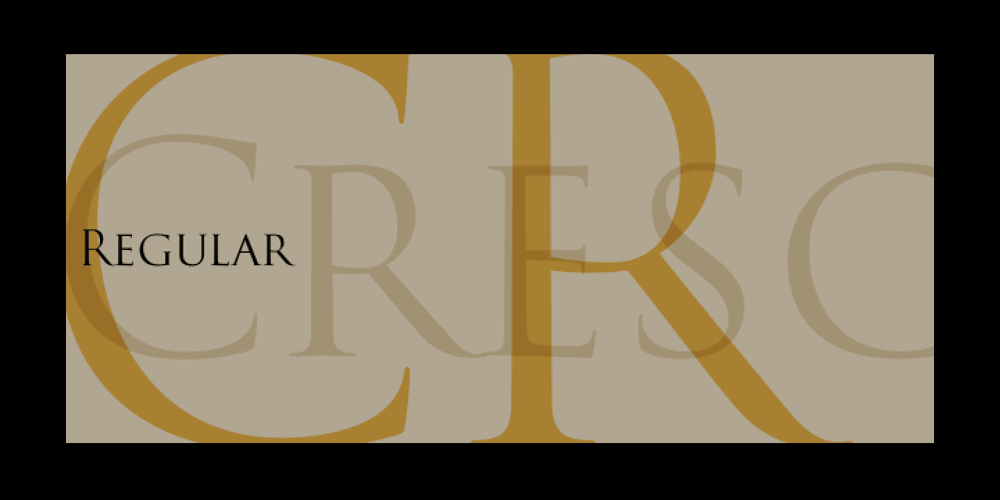
Cresci LP Font Family was designed by Garrett Boge, Giovan Francesco Cresci and published by LetterPerfect. Cresci LP contains 1 styles and family package options. Cresci is a carefully digitized reproduction of an alphabet of Giovan Francesco Cresci, the pre-eminent Renaissance writing master whose lettering virtuosity presaged the exuberance of the Baroque. His published writing book, “Il Perfetto Scrittore” (1570) was the inspiration for the typeface, designed by Garrett Boge in 1996. Cresci is part of the LetterPerfect Baroque Set.